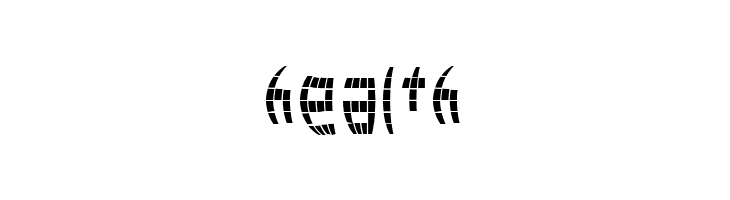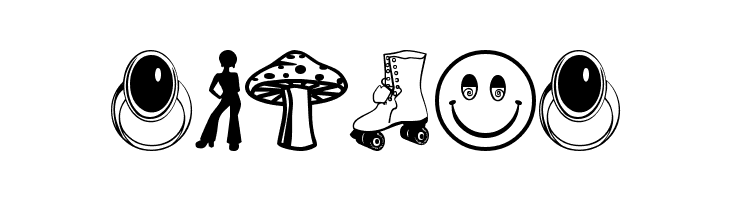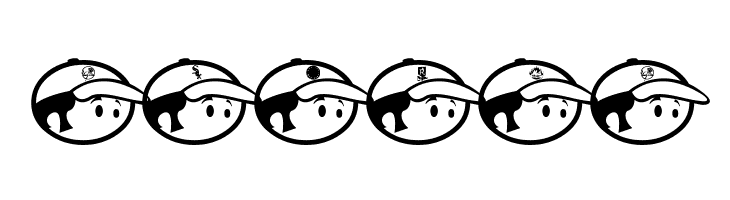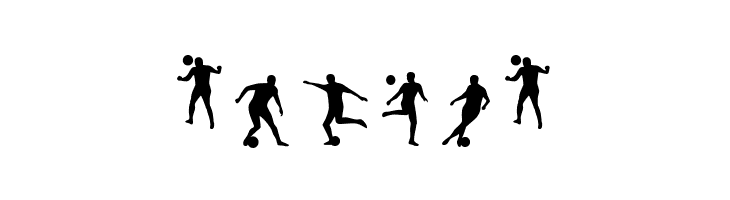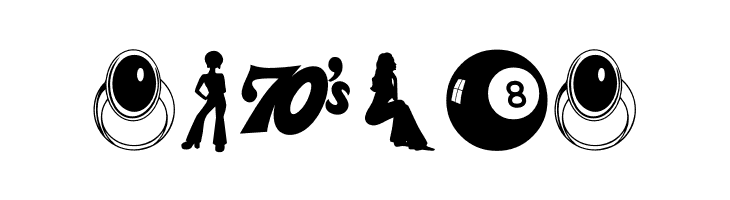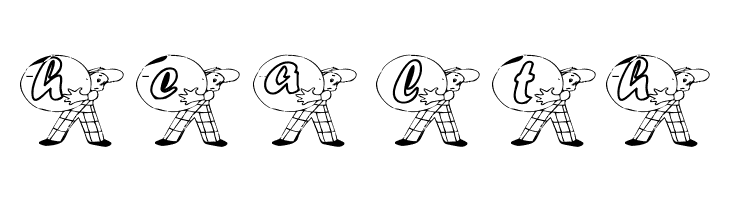
• KG BEACHBALL
A playful, decorative font with letters inside beach balls, perfect for fun projects.
• Disco 2000
A futuristic, disco-inspired font with segmented, reflective characters.
• BowlORama
• My 70s Ding
A 1970s-themed decorative dingbat font with iconic retro illustrations.
• Sporto
A playful collection of sports-themed icons in a cartoonish style.
• Soccer II
Silhouette dingbat font with soccer player and ball icons.
• Touchdown
• KR Football Fun
A bold, playful display font with football-themed embellishments.
• My70sDingOT
A collection of 1970s-themed decorative icons and symbols.
• Bingo Player JL
A bold, sans-serif font with characters enclosed in circles, ideal for high visibility.